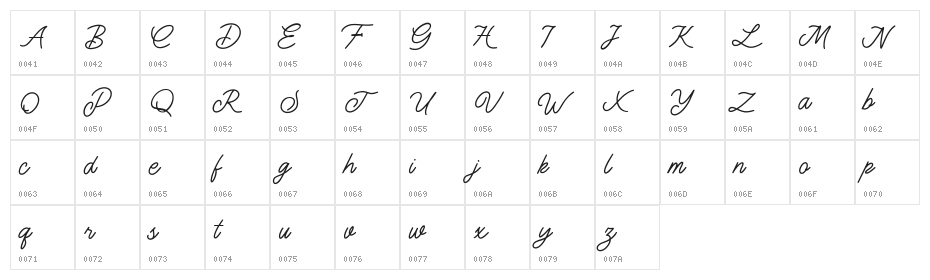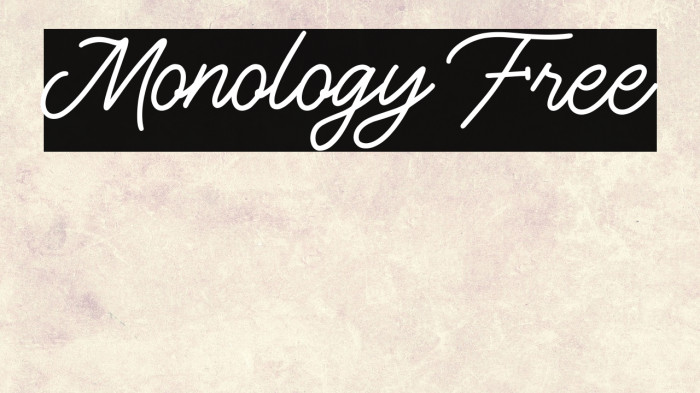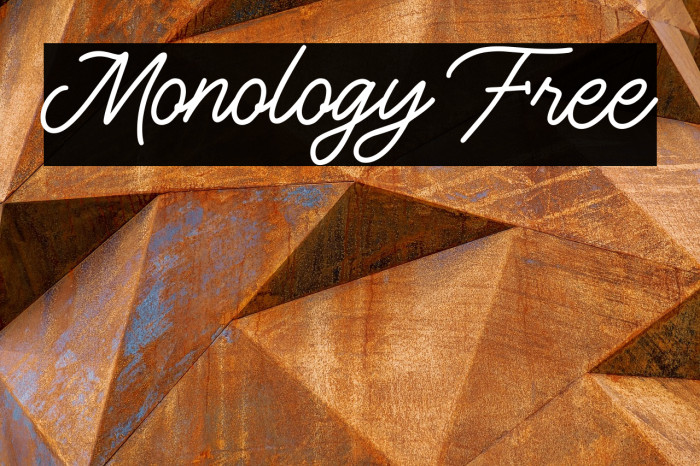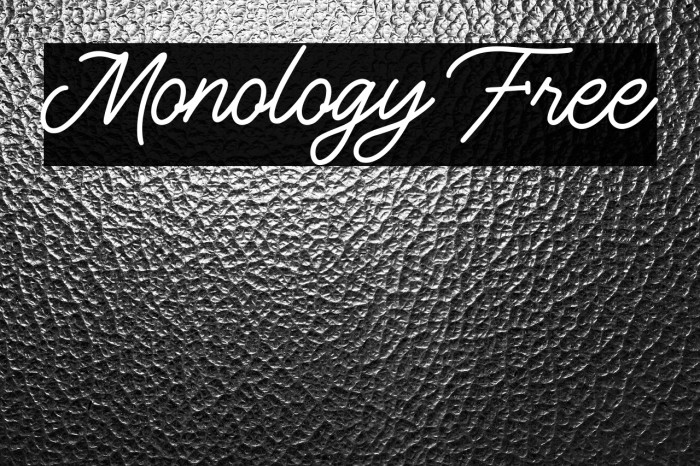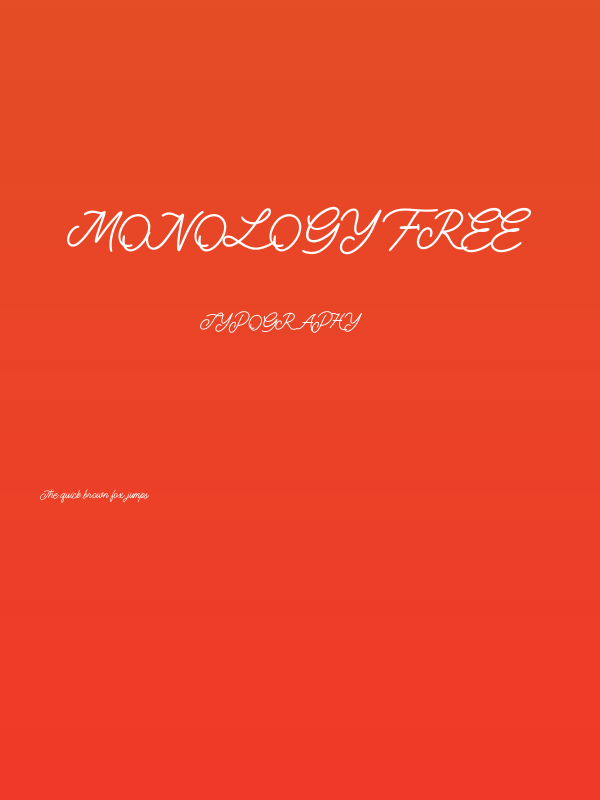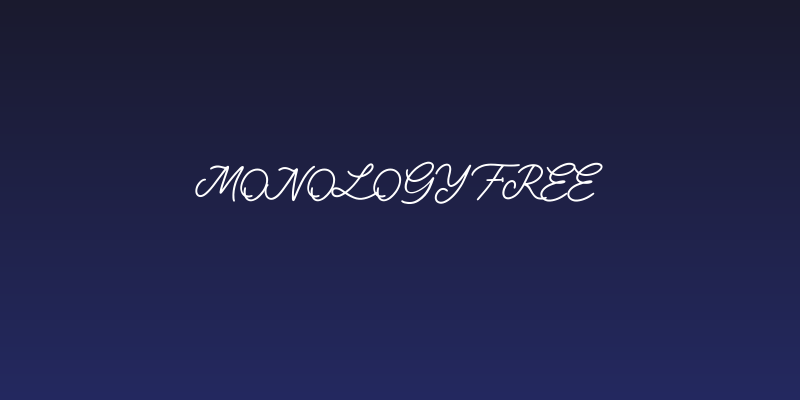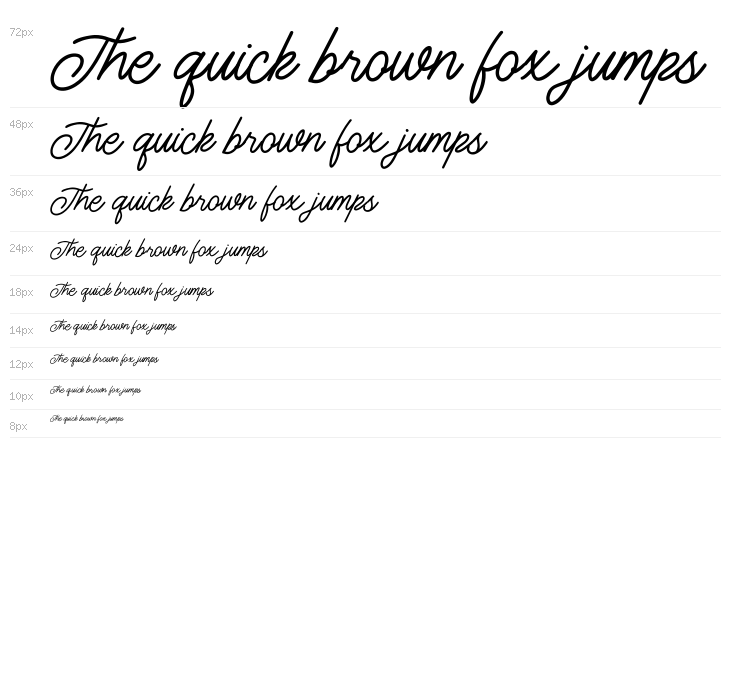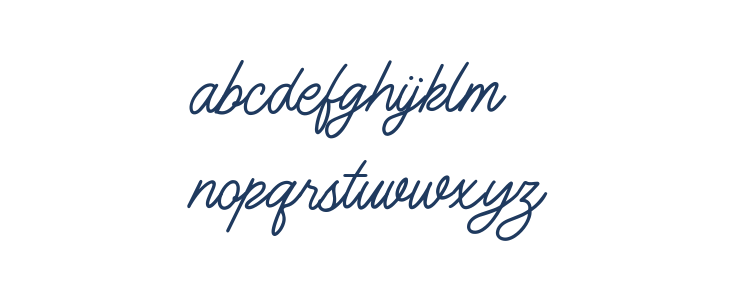
Monology Free Font
Monology Free Description
This elegant script font features a flowing, cursive style with smooth, connected strokes that mimic the fluidity of handwriting. The uppercase letters are slightly more ornate, with graceful loops and curves, while the lowercase letters maintain a consistent, flowing appearance. The font's design is both sophisticated and approachable, making it suitable for a variety of uses. The characters are well-proportioned, with a slight slant that adds to the handwritten feel. The overall aesthetic is both classic and modern, offering versatility in design applications.
| Proposed Projects | Ideal for wedding invitations, greeting cards, branding, and elegant packaging. |